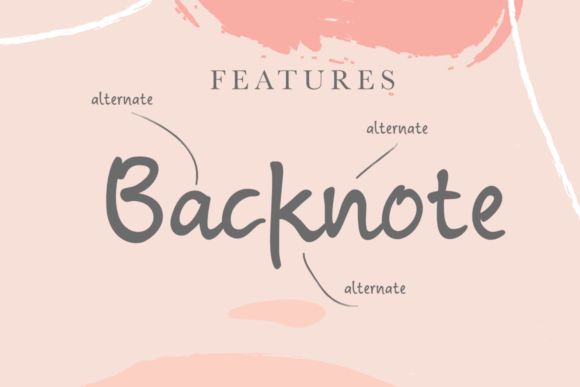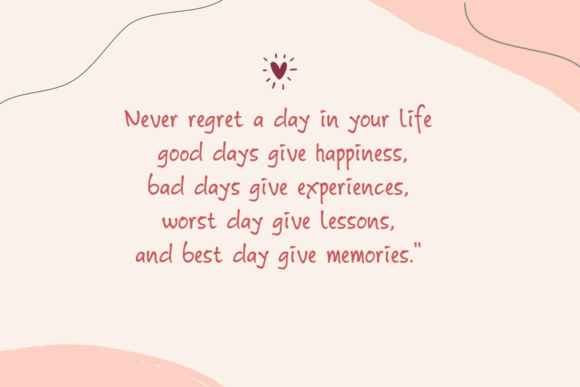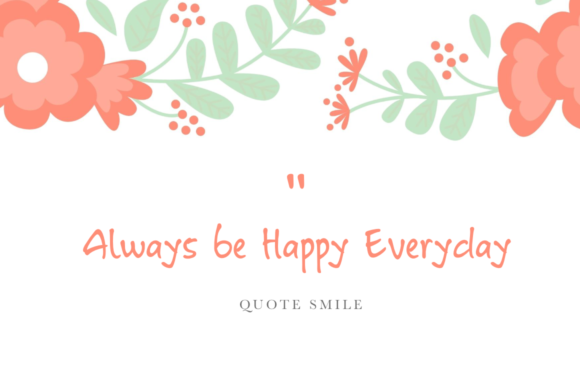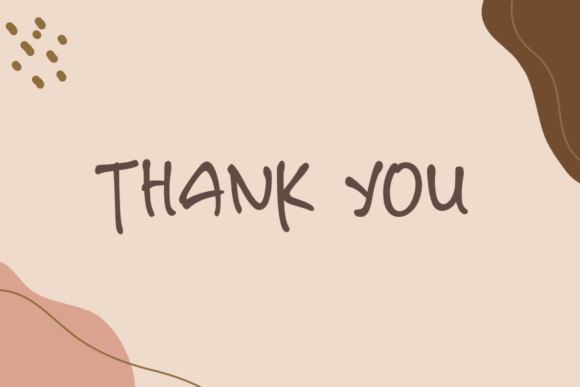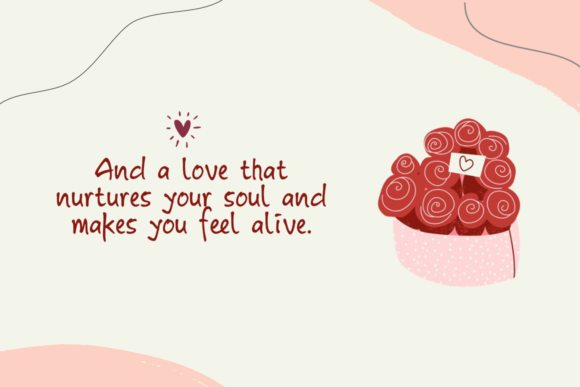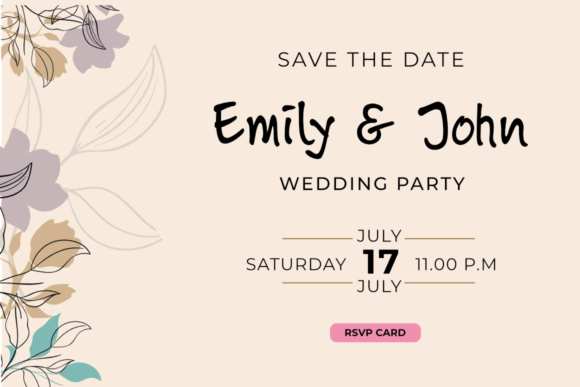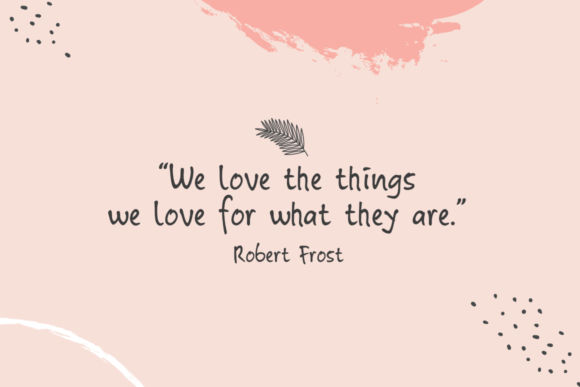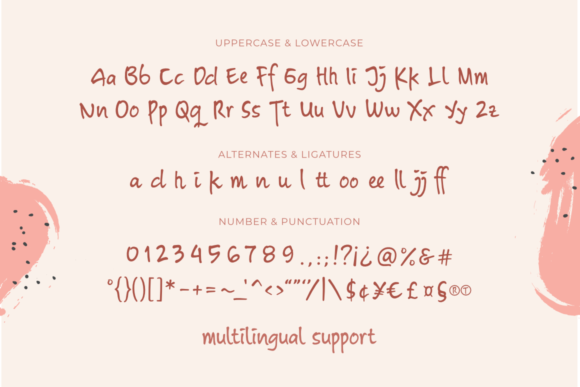
Backnotes Font
About Backnotes Font
Backnotes is a simple, natural and friendly handwritten font. It can be used for various designs – either formal or informal, such as logos, labels, menus and so on. the options are unlimited.